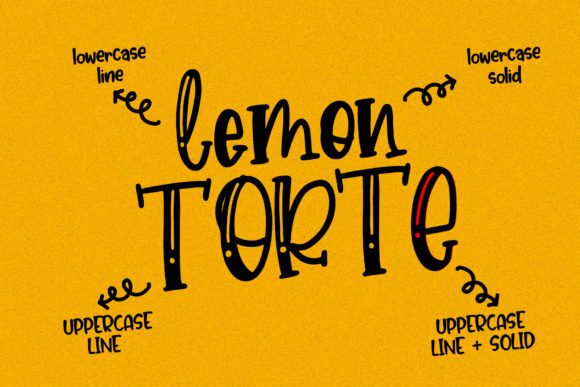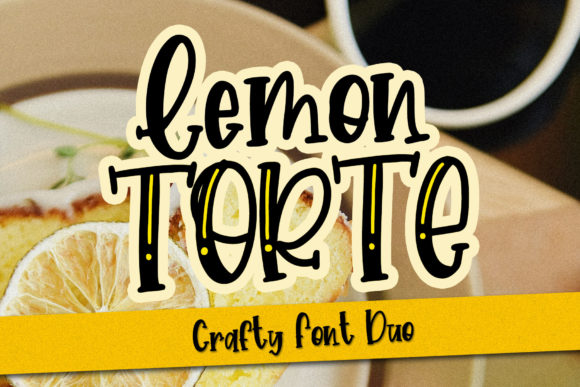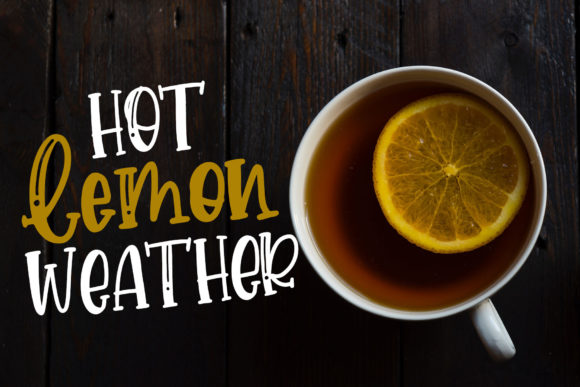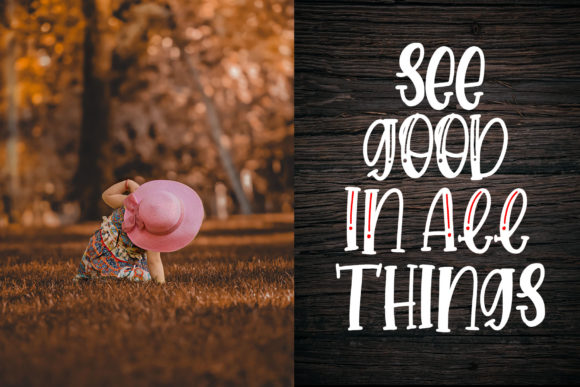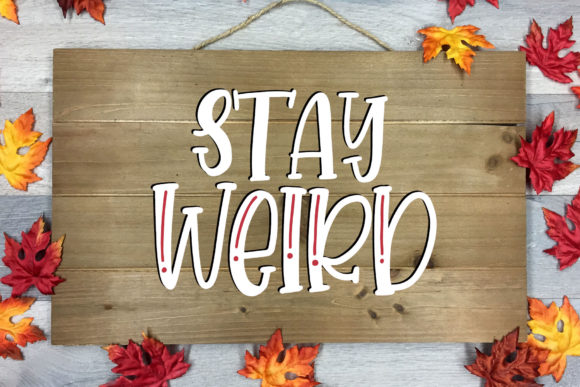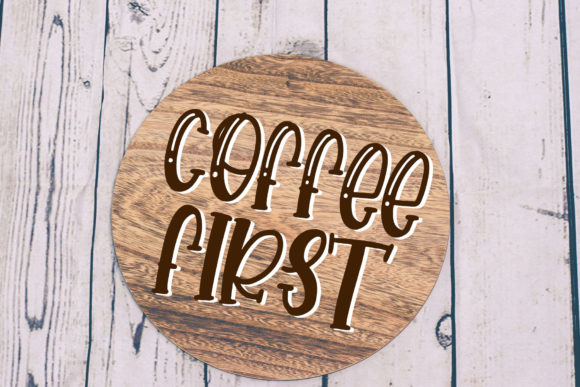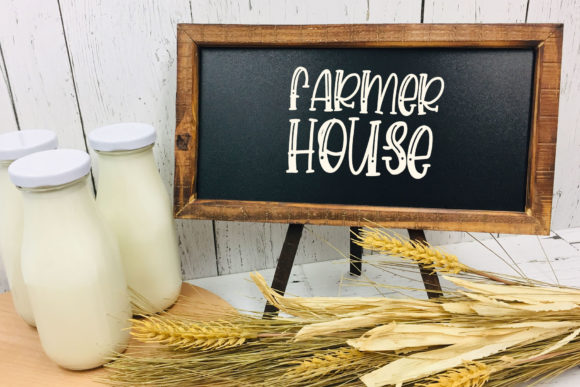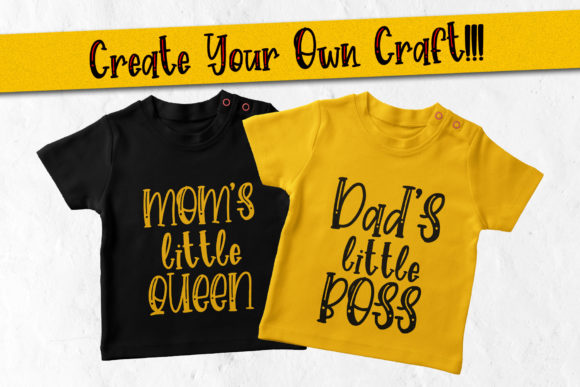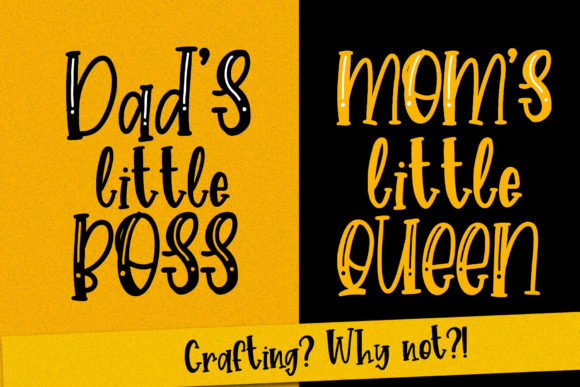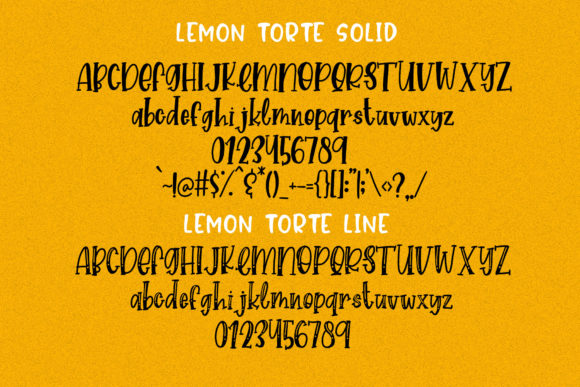
HomeScript FontsLemon Torte Font Script Fonts Lemon Torte Font FacebookXPinterestWhatsApp Lemon Torte Font Poster 2 Lemon Torte Font Poster 3 Lemon Torte Font Poster 4 Lemon Torte Font Poster 5 Lemon Torte Font Poster 6 Lemon Torte Font Poster 7 Lemon Torte Font Poster 8 Lemon Torte Font Poster 9 Lemon Torte Font Poster 10 Lemon Torte Font Poster 11 About Lemon Torte Font Lemon Torte is a lovely and charming handwritten font that celebrates all things sweet. DOWNLOAD NOW People also explored Quinn Font Scenery Font Missland Font Virtoprov Font Delisa Birth Flower Duo Font Jingle Font Sparkle Winter Font Play Duck Font Midsummer Better Font 389 0 TagsLemon Torte Font Previous articleDevinda FontNext articleBrielle Font LEAVE A REPLY Cancel reply Comment: Please enter your comment! Name:* Please enter your name here Email:* You have entered an incorrect email address! Please enter your email address here Website: Save my name, email, and website in this browser for the next time I comment. Personal Use Free Konexio Personal Use Free Read more about this font Mueband Personal Use Free Read more about this font Fifteenth Century Personal Use Free Read more about this font Reztop Personal Use Free Read more about this font BLOG Best Fonts for YouTube Videos: Make Your Thumbnails Stand Out Best Fonts for YouTube Videos: Make Your Thumbnails Stand Out Choosing the right font can make a massive difference in how your YouTube videos perform.... Exploring Font Trends Transform Your Website: Elevate Your Typography with 7 Best Web Font Generators Free vs Paid Fonts: Why Investing in Premium Fonts Is Worth It